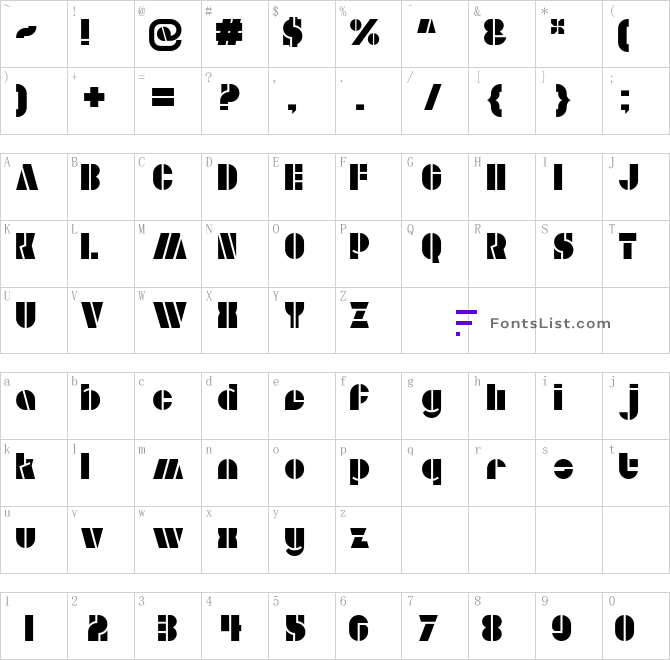
- Font Name:Aldo
- Full Name:Aldo Open
Aldo-Open.otf is a very beautiful artistic font, Aldo-Open.otf is widely used in the design and printing of various books and pictures,Aldo-Open.otf has a strong visual impact,Aldo-Open.otf is a commonly used font in newspapers, magazines and books, and is used in posters, e-commerce Poster design, store design, logo design, font design and other fields.Aldo-Open.